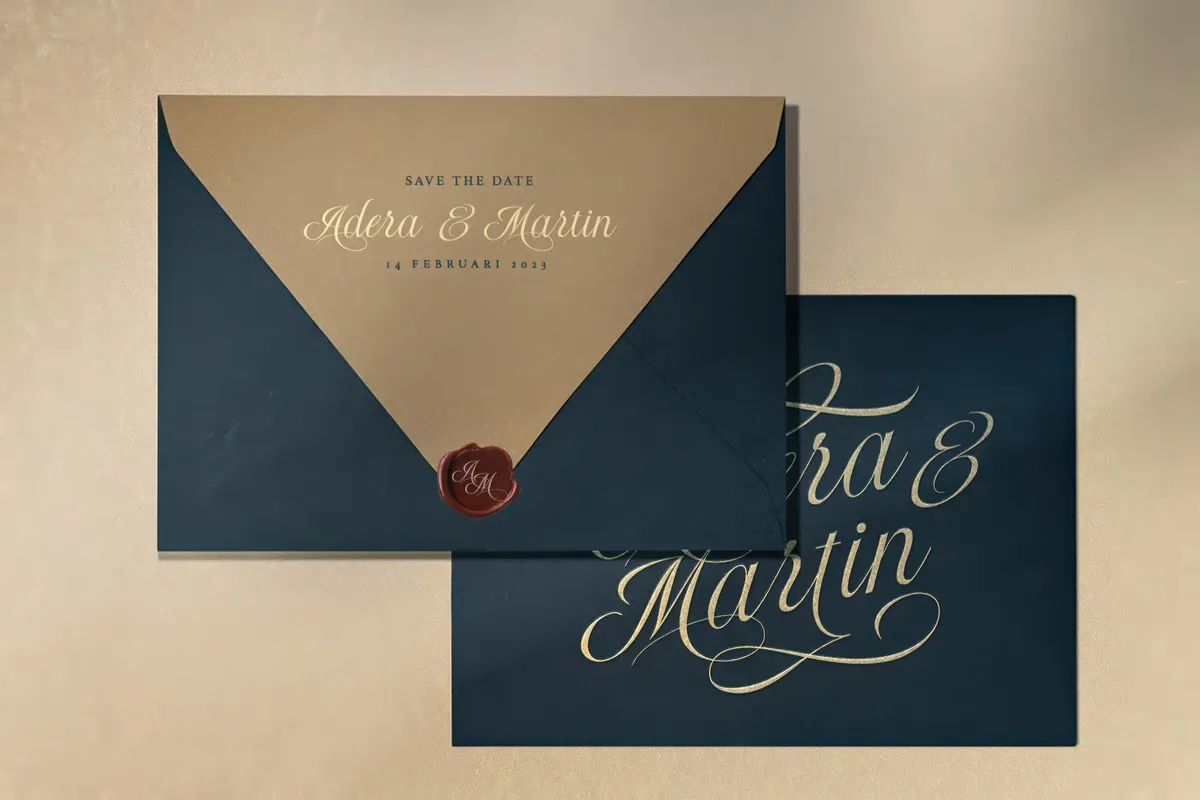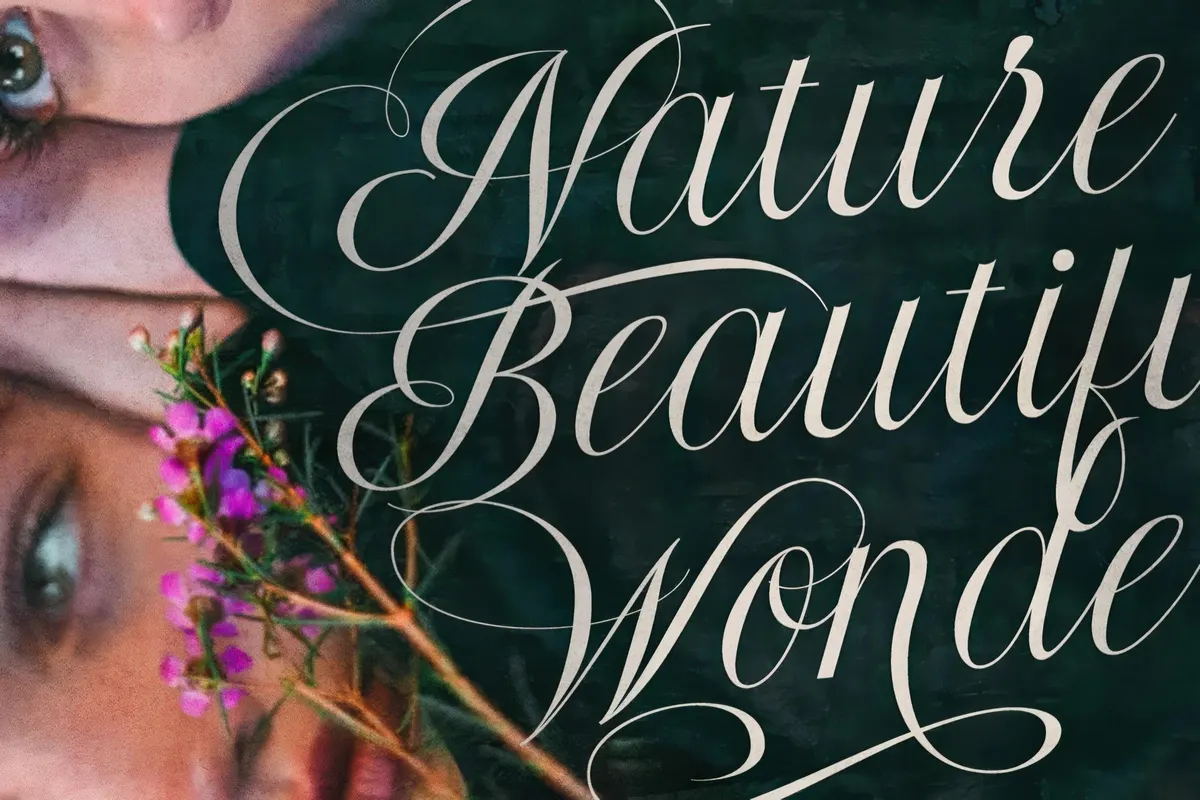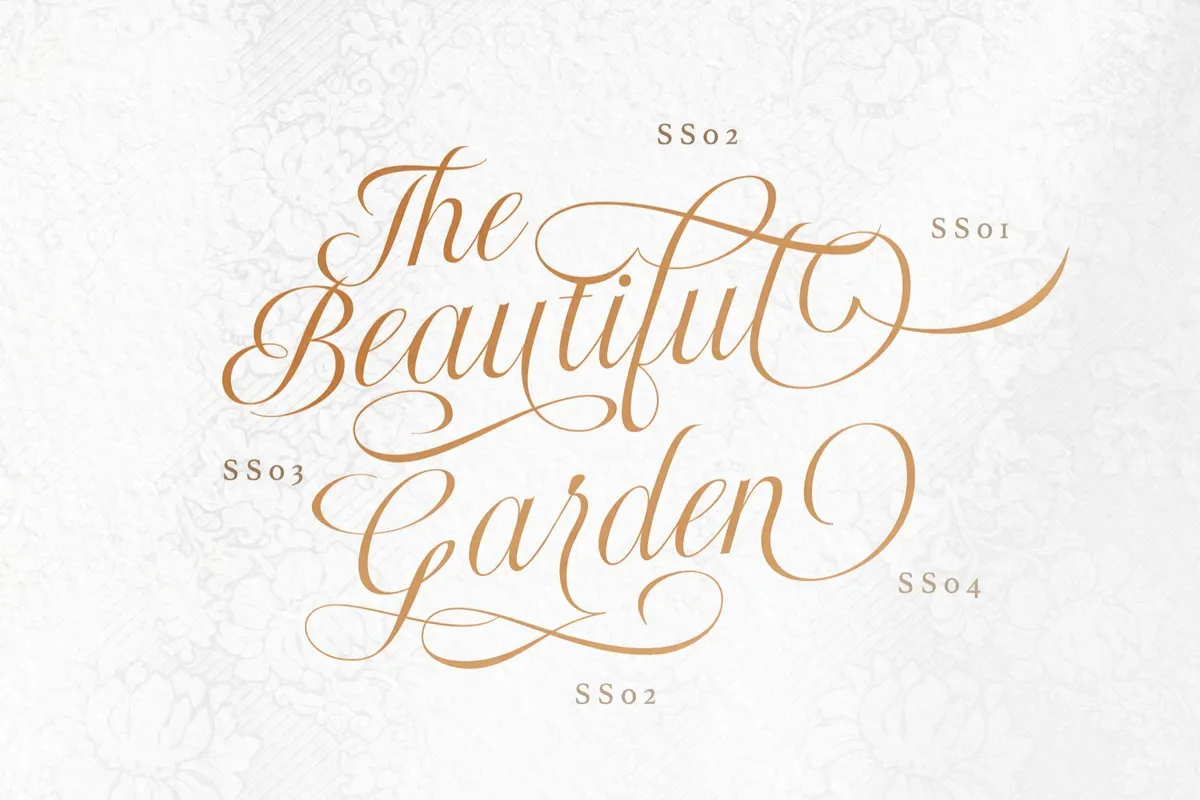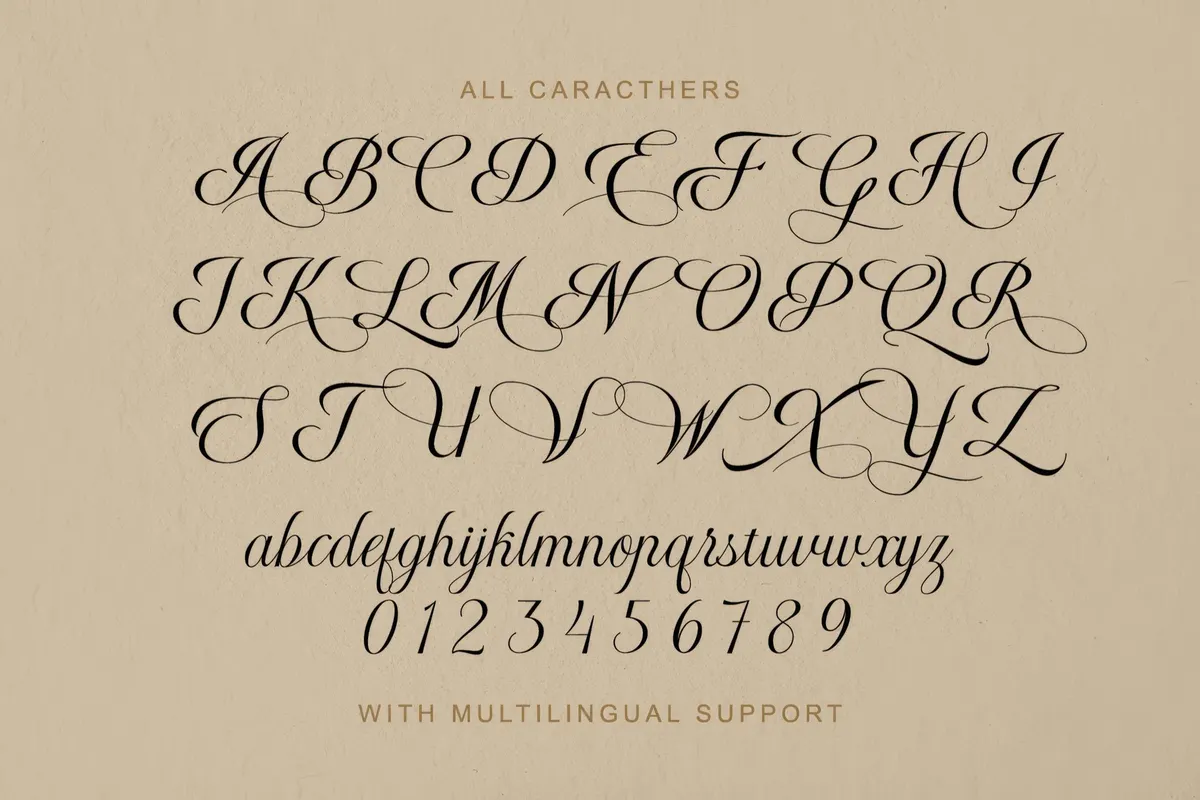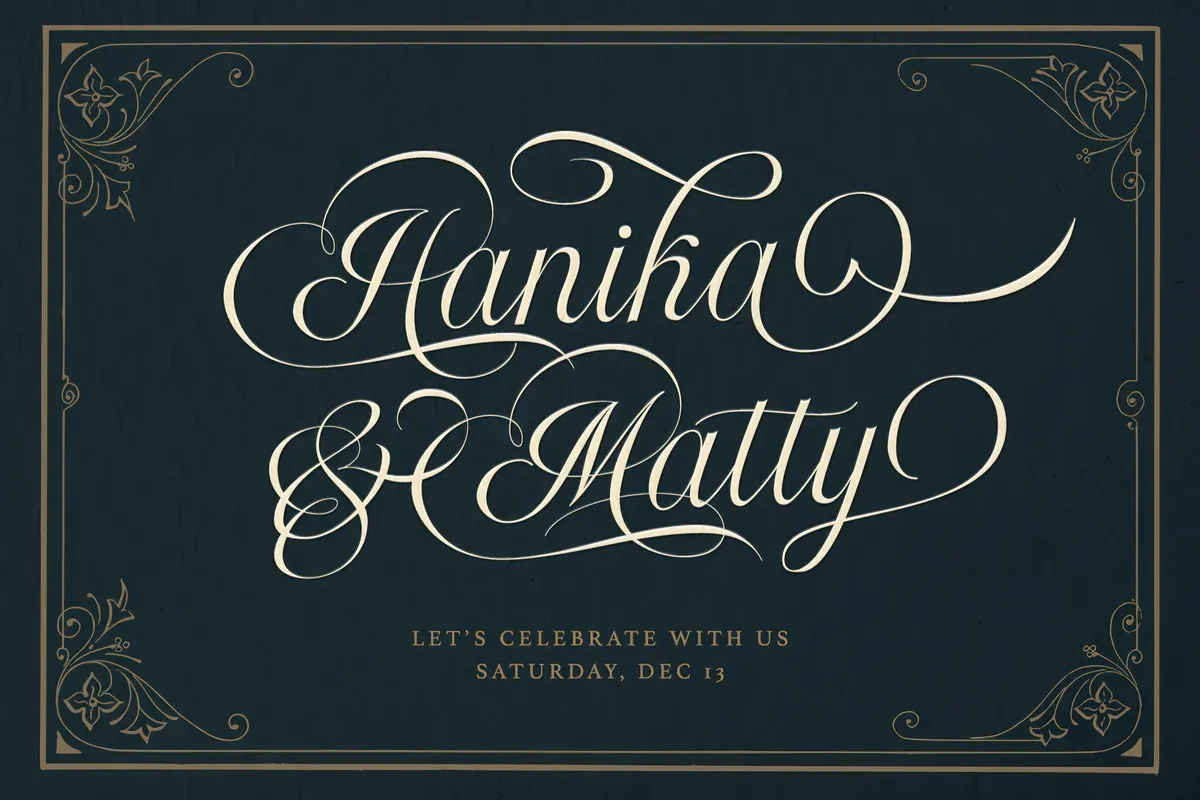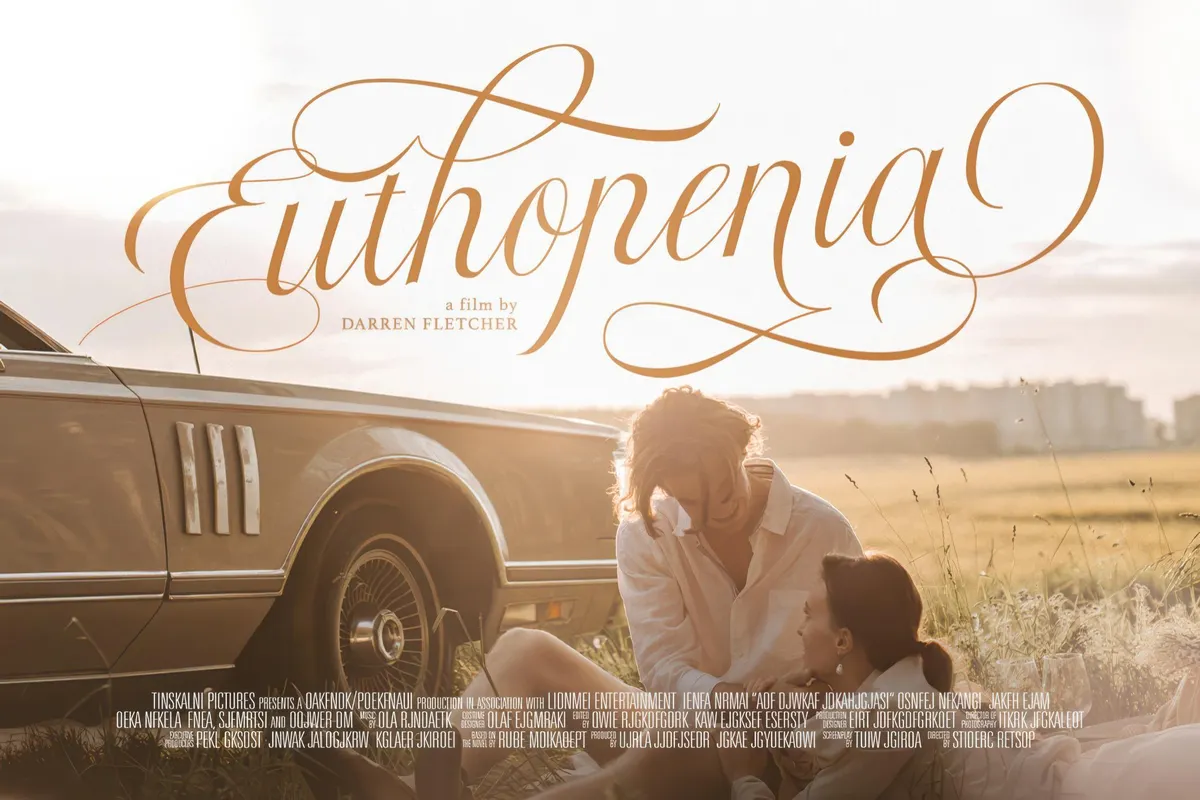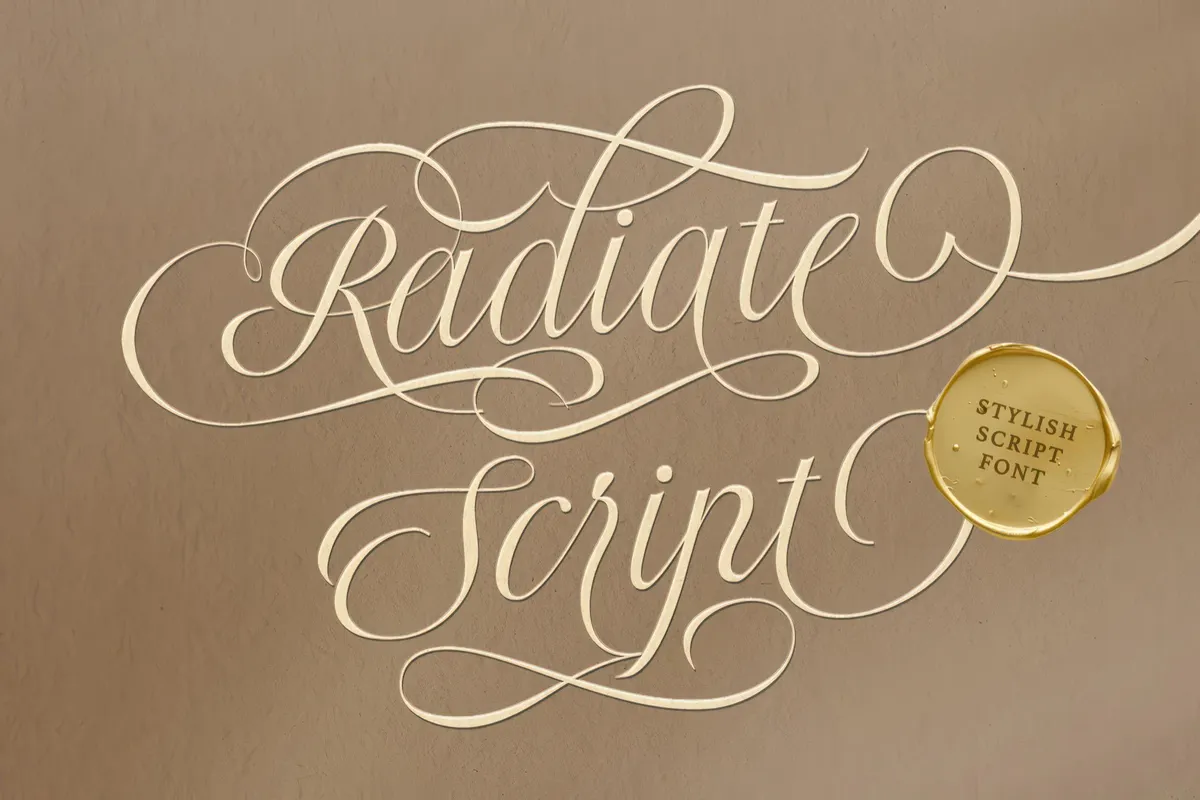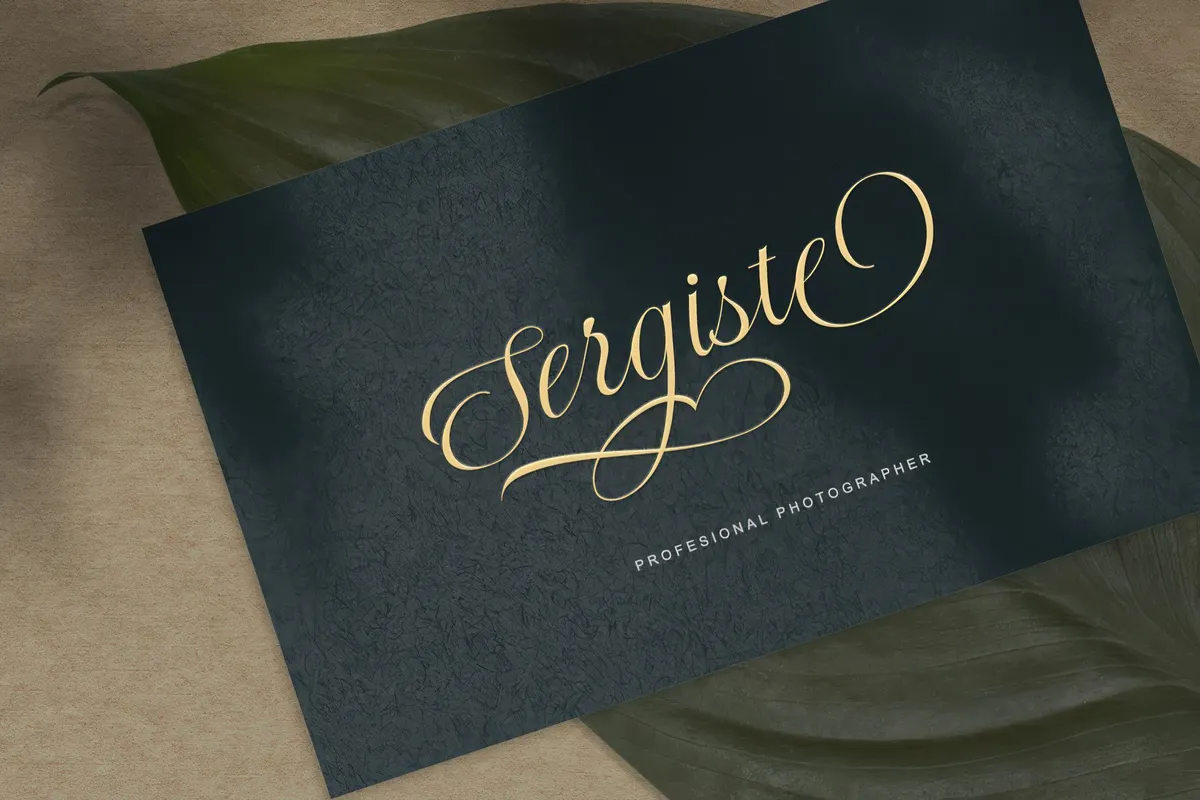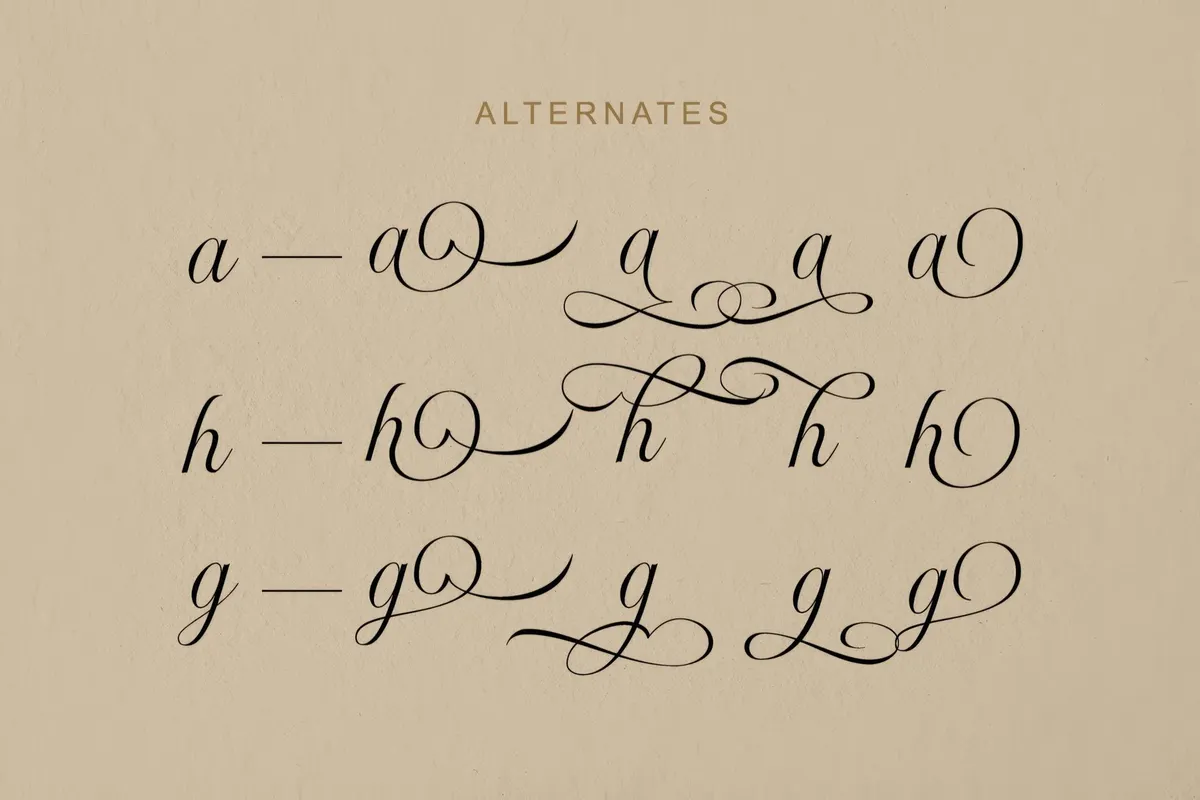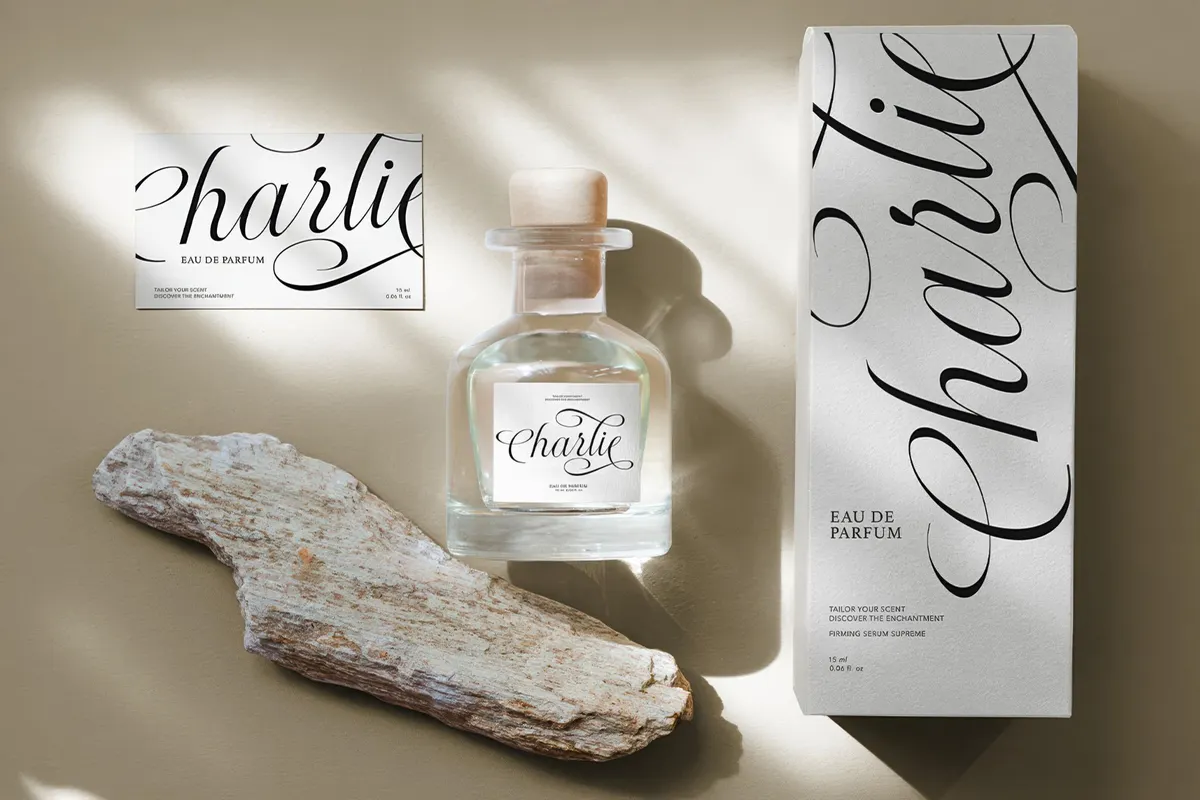
Radiate — Stylish Wedding Script
Radiate is kinda labeled itself as a wedding font, but let's think for a moment: where else could we use a delicate script without designing invitations or save the dates? Perhaps you're plotting to craft the world's most elegant grocery list?
Because why not? Don’t deny yourself some everyday sophistication. With those endless swooshes and swashes, this copperplate styled gem can take a mundane task and make it exquisite. We want you to put to the test its versatility. Offering uppercase and lowercase letters, numbers, punctuation, a treasure trove of stylistic alternates, and multilingual support on top of it, this fancy script will help fulfill any idea, even the most absurd one.